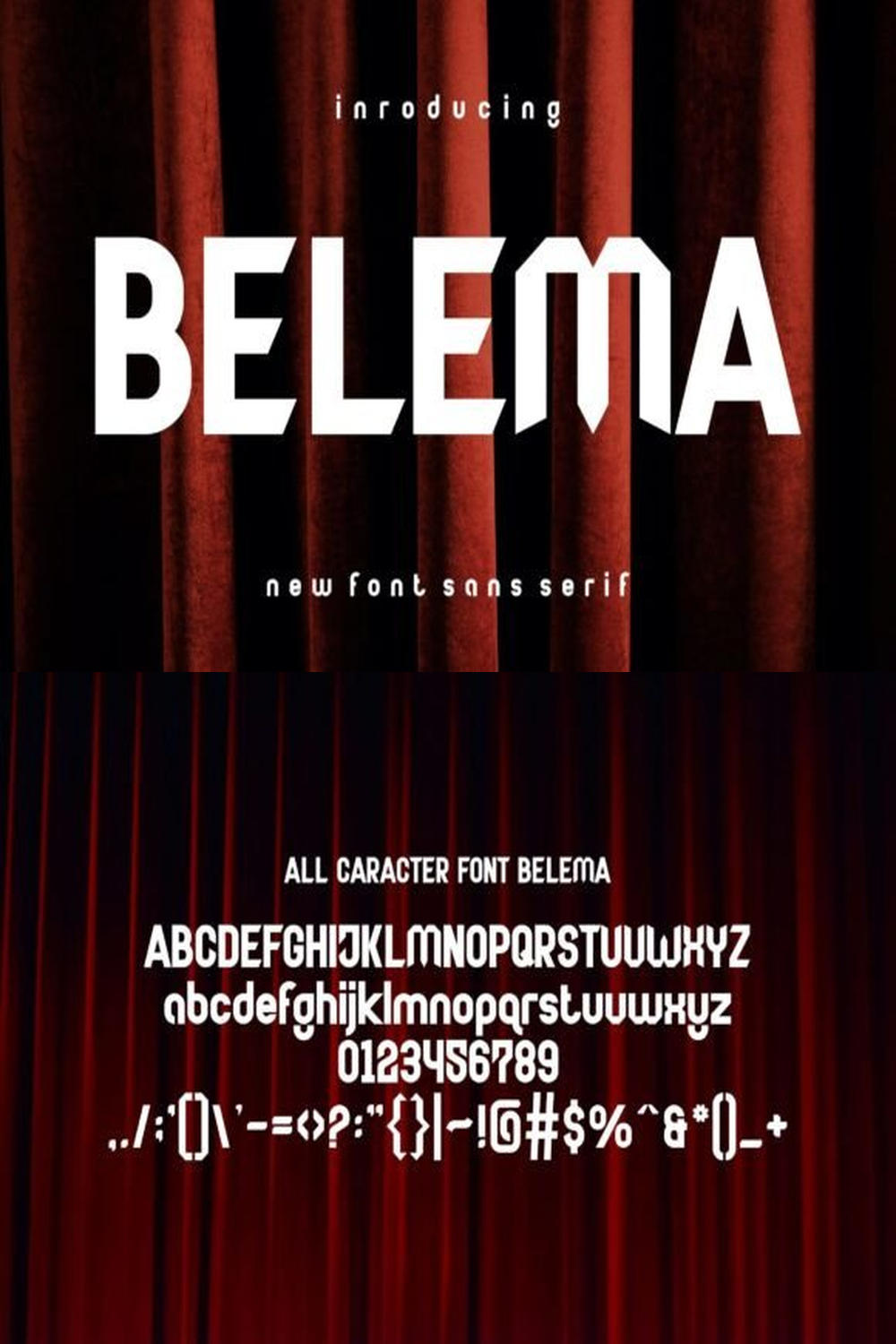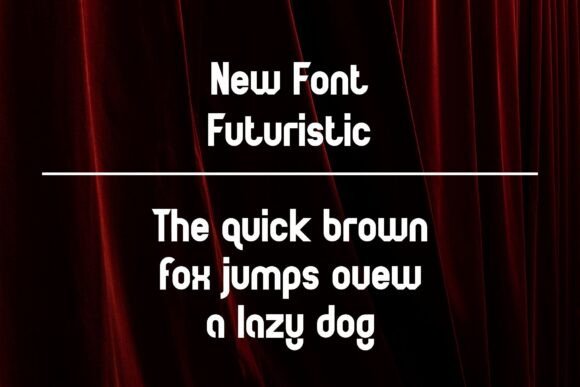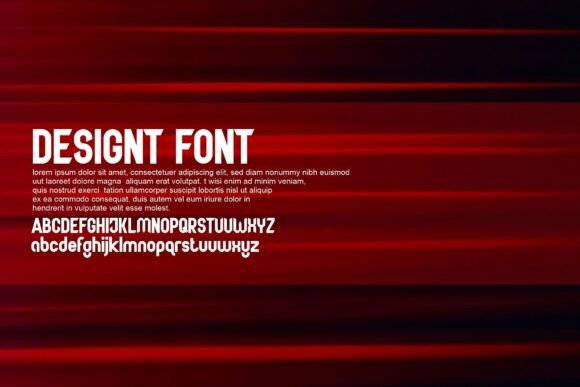
Belema Font
About the Belema Font
Introducing the Belema Font, a beautifully crafted typeface designed to elevate your creative projects. Belema is an incredibly unique sans serif font. Masterfully designed to become a true favorite, this font has the potential to bring each of your creative ideas to the highest level!